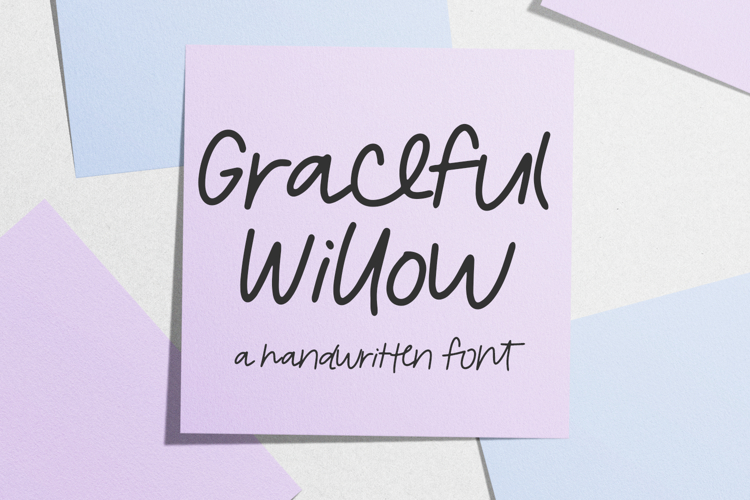
Graceful Willow Script
Graceful Willow Script is a messy handwriting font. This script font is like what you may find in a handwritten note or a grocery list - casual, effortless, and unique to the person who wrote it. Graceful Willow is perfect for logos & branding, greeting cards, painted banners, digital planners, note-taking apps, Canva, Cricut projects, Silhouette projects, designing SVG files, laser cutting projects, & more.
Graceful Willow includes:
- 21 alternates - a, e, g, h, i, l, n, o, p, r, s, t, u, e, n, p, s, t, s, t, t
- 40 ligatures - ai, al, al, ar, ax, ce, ch, ch, cl, co, de, der, ee, er, er, ff, fi, fi, fl, fo, fr, in, ing, li, ll, nt, of, se, so, te, te, th, th, ti, to tro, ty, un, ve, ve